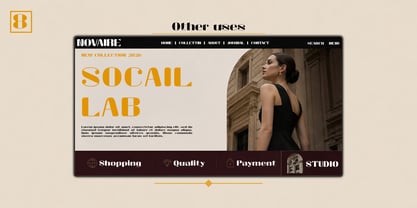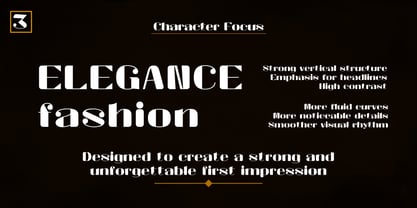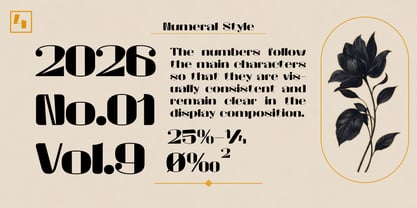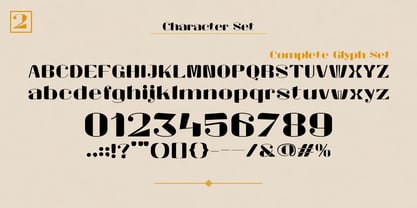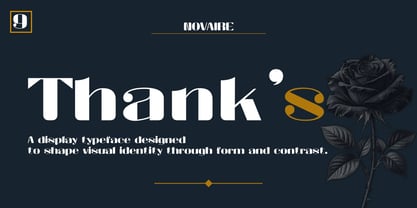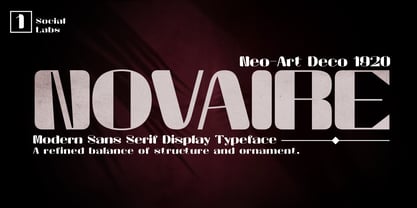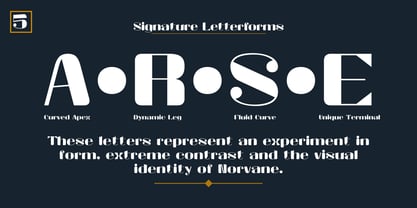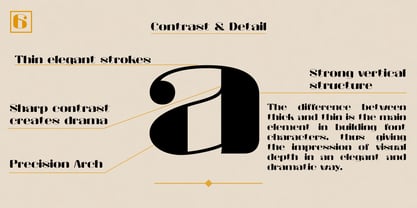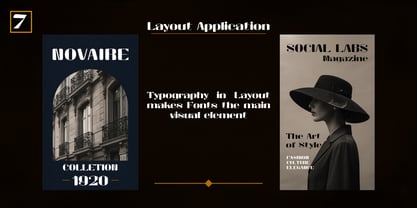
Novaire
by Social Labs
The Novaire Font Family was designed by Muhammad Naufal and published by Social Labs. Novaire contains 5 styles and family package options. More about this family
Novaire is a modern deco display typeface that combines extreme thick–thin contrast with refined decorative letterforms, creating a dramatic and elegant visual presence through strong vertical structure, flowing curves, and carefully crafted details in each glyph, resulting in a distinctive typographic identity that is highly effective for headlines, logos, and editorial design requiring a bold, high-impact look with a sense of contemporary European luxury.